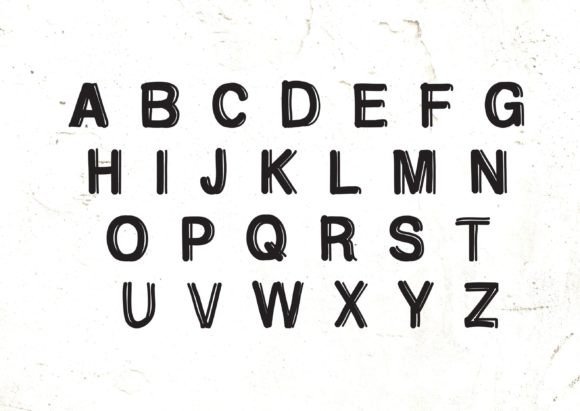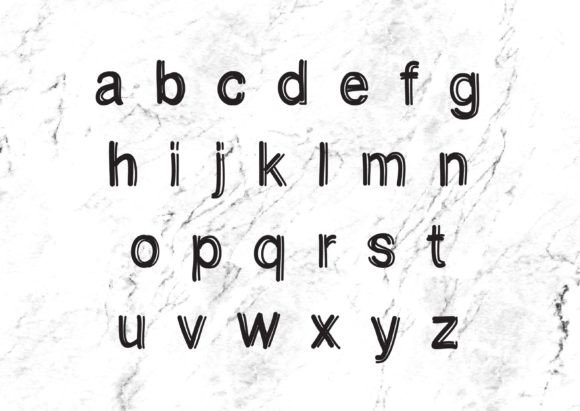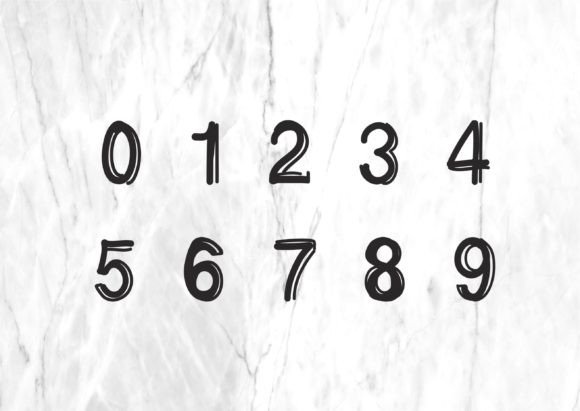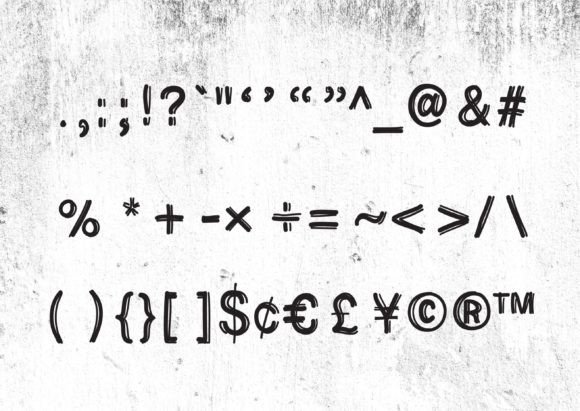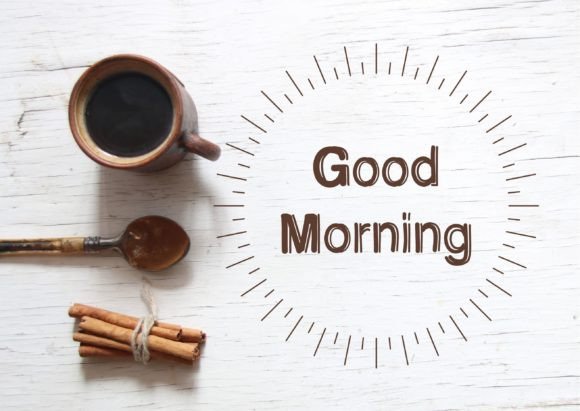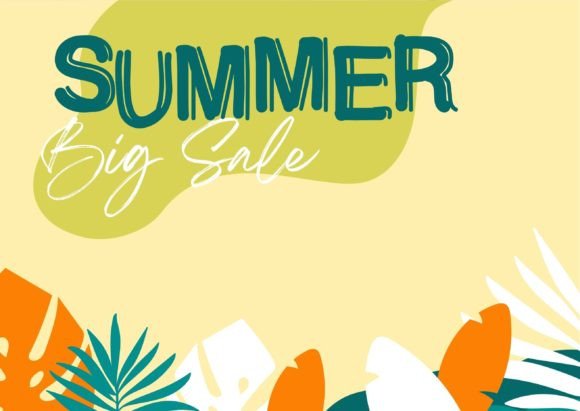
Introduction to Miss You a Lot Font
Miss You A Lot is a unique and creative display font.
This font is perfect for headlines and short blocks of text This unique display font is perfect for adding a touch of elegance to any design.
Key Features of Miss You a Lot Font